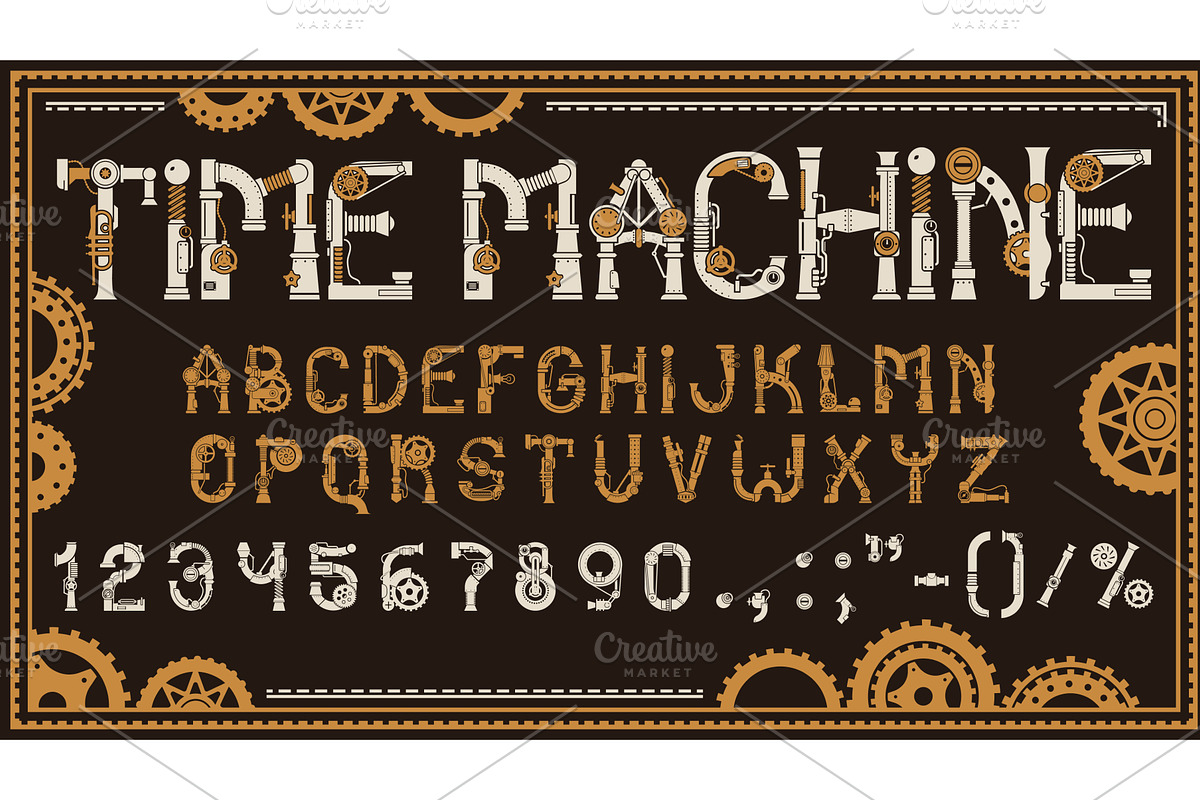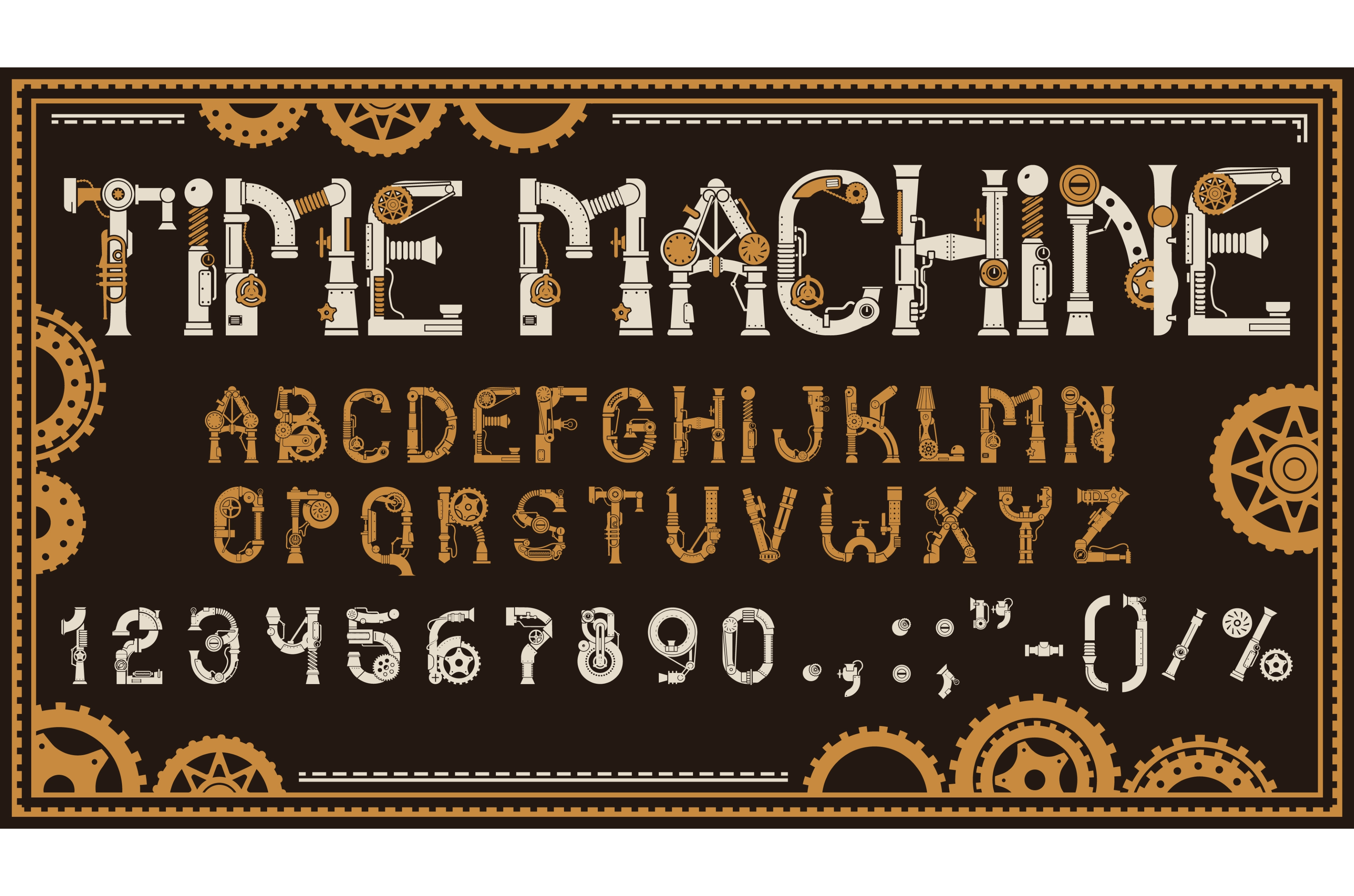
Mechanic steampunk font
Mechanic steampunk font, gear type, retro machine English typeface alphabet. Vector retro industrial abc letters, symbols and numbers with mechanical gears. Machine fantasy typography with details